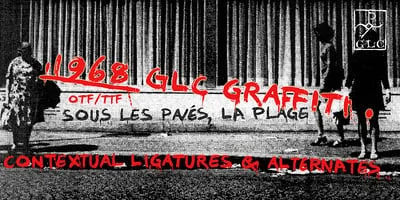
1968 GLC Graffiti Font
The 1968 GLC Graffiti Font excels in various design applications including revolutionary protest movement branding, vintage graffiti art marketing, 1960s cultural heritage communications, retro revolution festival materials, vintage street art gallery identities, historical activism documentation, counterculture museum exhibitions, vintage protest poster designs, revolutionary art installations, and distinguished historical projects that demand 1960s authenticity and graffiti sophistication.
What makes the 1968 GLC Graffiti Font exciting is its powerful embodiment of revolutionary spirit and vintage graffiti culture through letterforms that capture the essence of 1960s protest movements and the raw authenticity of street art rebellion. This typeface demonstrates exceptional historical character through carefully crafted letters that suggest the spray-painted urgency of political graffiti, the passionate voice of social revolution, and the cultural significance that makes 1968 such a pivotal year in protest history and street art development. The font's graffiti personality makes it perfect for cultural institutions and activist organizations seeking to communicate historical authenticity, revolutionary spirit, and the kind of vintage rebellion that creates memorable protest experiences through typography that literally tags with historical significance.
The 1968 GLC Graffiti Font family typically includes revolutionary weight variations that enhance the vintage graffiti aesthetic, featuring authentic street styling and extended character sets optimized for historical communications and cultural applications. These family options often include protest-inspired alternates, revolutionary symbols, and vintage decorative elements that provide designers with comprehensive tools for creating authentically historical typography that celebrates 1960s culture while maintaining contemporary design appeal and historical credibility.
Cultural heritage professionals and activist organizations consistently select 1968 GLC Graffiti Font for projects requiring typography that communicates historical authenticity and graffiti sophistication. This typeface delivers exceptional performance in cultural marketing, historical branding, and revolutionary communications where establishing period accuracy and creating authentic protest atmosphere is essential for historical education engagement. The font's vintage character makes it particularly effective for museum and documentary applications. Download 1968 GLC Graffiti Font today to access this historically powerful typeface that transforms revolutionary communications with its graffiti elegance and vintage sophistication, creating compelling cultural experiences that honor the magnificent courage of 1960s activism while celebrating the rebellious spirit that defines authentic protest culture and revolutionary graffiti excellence.